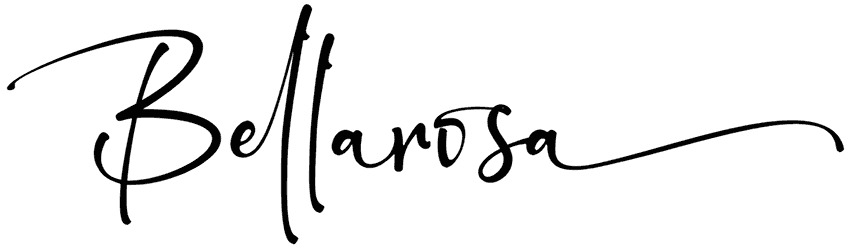
Bellarosa Font
Usually, there’s no point in looking for a signature font that can convey a sense of luxury as well as a magical theme because that’s so rare it’s almost impossible to ask for something like that. But now that this wonderful opportunity has presented itself, take it. Why not?
Bellarosa, our new cursive treat for our website users, is here to be the reason people feel immediately pleased with your business cards for artists, authors, chefs, or some other inspired profession.